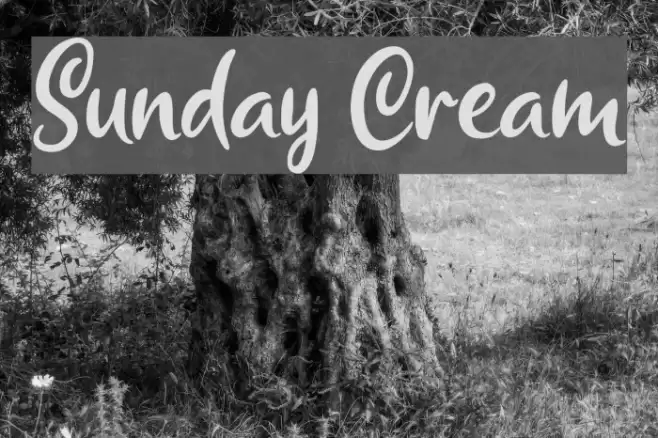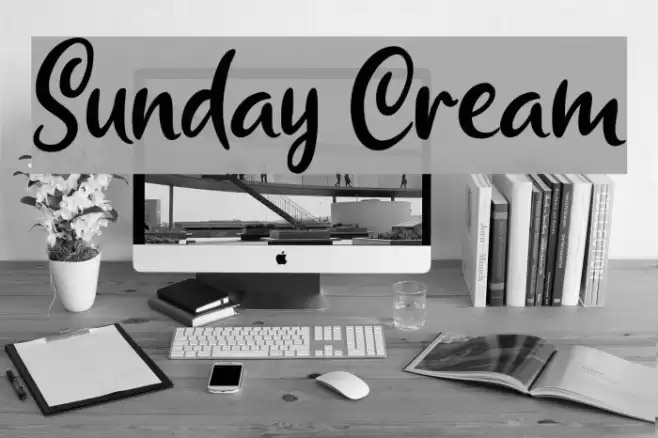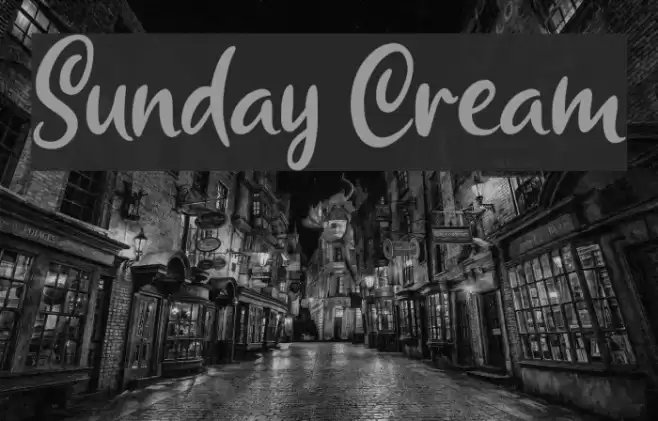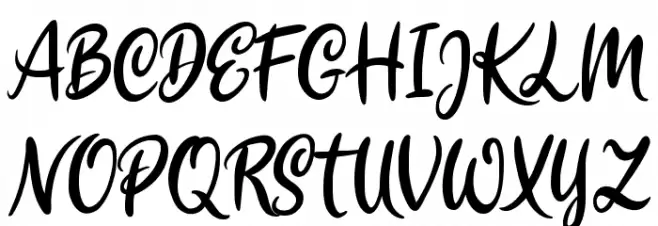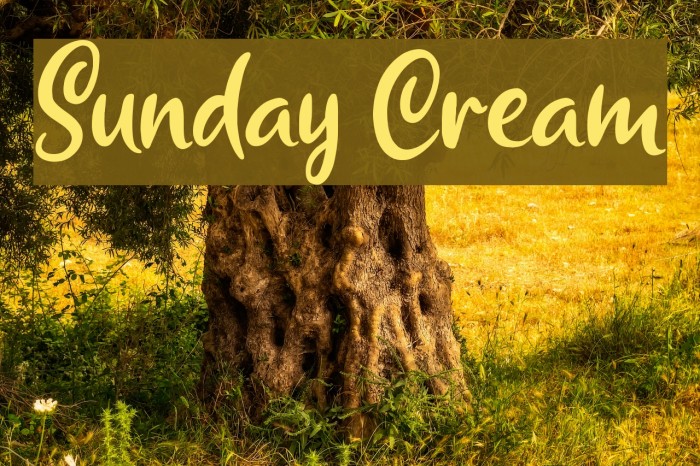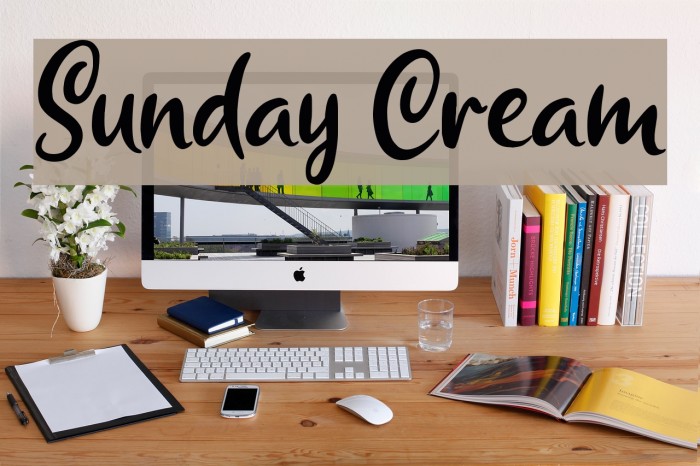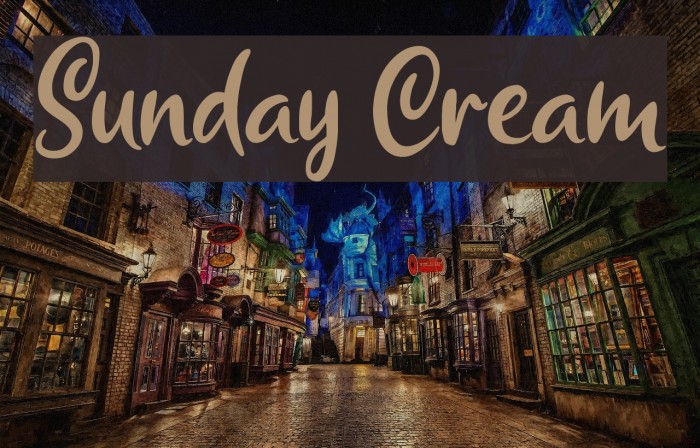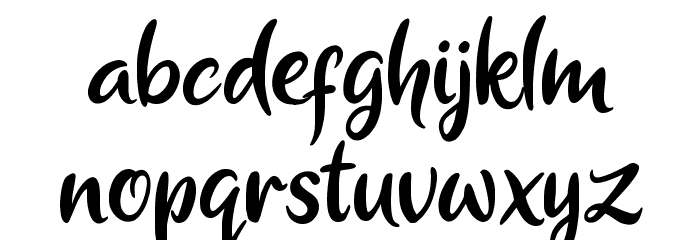
Sunday Cream Font
Sunday Cream Description
This font features a playful and elegant script style with a handwritten feel. The letters are fluid and connected, giving a sense of movement and grace. The uppercase letters are bold and expressive, while the lowercase letters maintain a consistent flow. The strokes are smooth with moderate thickness, creating a balanced contrast that enhances readability. This font is ideal for projects that require a personal touch, such as invitations, greeting cards, and branding materials. Its decorative nature makes it suitable for headlines and display purposes.
A playful and elegant script font with a handwritten feel.
- Proposed Projects: Ideal for invitations, greeting cards, branding materials, and decorative headlines.
- Category: Script
- Use Case: Headlines, Logos, Invitations